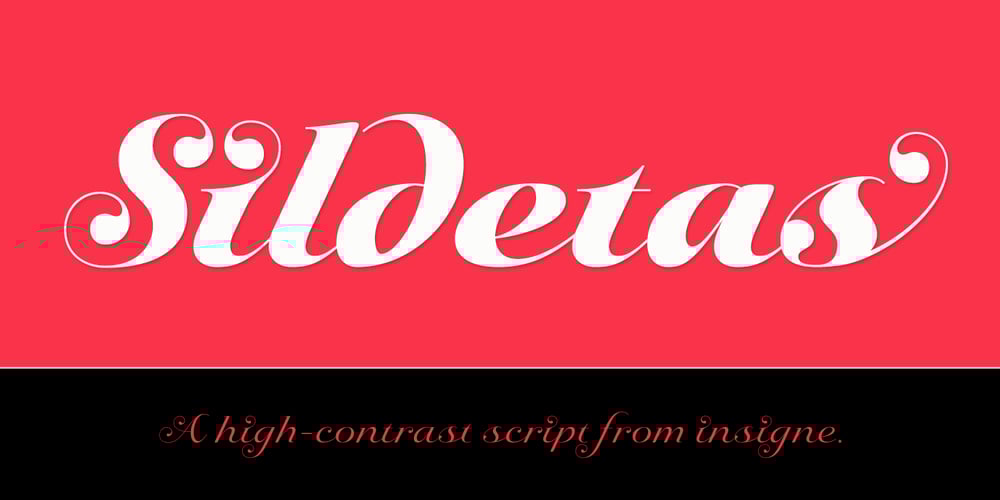
Sildetas
Sildetas font
Sildetas Font Family was designed by Jeremy Dooley and published by insigne. Sildetas contains 6 styles and family package options. Sildetas is an elegant high-contrast script face. Sildetas was conceived as non-connected, high-contrast and ultra heavy script, as best exemplified by the Black weight. However, it was too much of a temptation to design a hairline variant, and this exploration gave the family’s lighter weights an elegant, graceful feel. The script was modified further to use connected letterforms as the primary glyphs. With its unique swirled ball terminals, this versatile script draws immediate attention. The face glides and flows across the page and the swirling ball terminals provide an interesting diversion to the flow. The lighter weights have an almost spencerian look. Sildetas includes six weights and is a very unique script face. Lighter weights can be used for elegant invitiations. Sildetas can get the job done for many unique design tasks. Sildetas includes many useful OpenType features, including a set of non-connecting and titling alternates, ligatures, and two types of end swashes. Opentype features include simplified swashed stylistic alternates without ball terminals, swash endings, ending contextual alternates, discretionary ligatures, ligatures and five different stylistic sets filled with alternates. In total, there are over 60 alternate letterforms. OpenType-capable applications such as Quark or the Adobe suite can take full advantage of the automatically replacing ligatures and alternates. This family also includes the glyphs to support a wide range of languages.